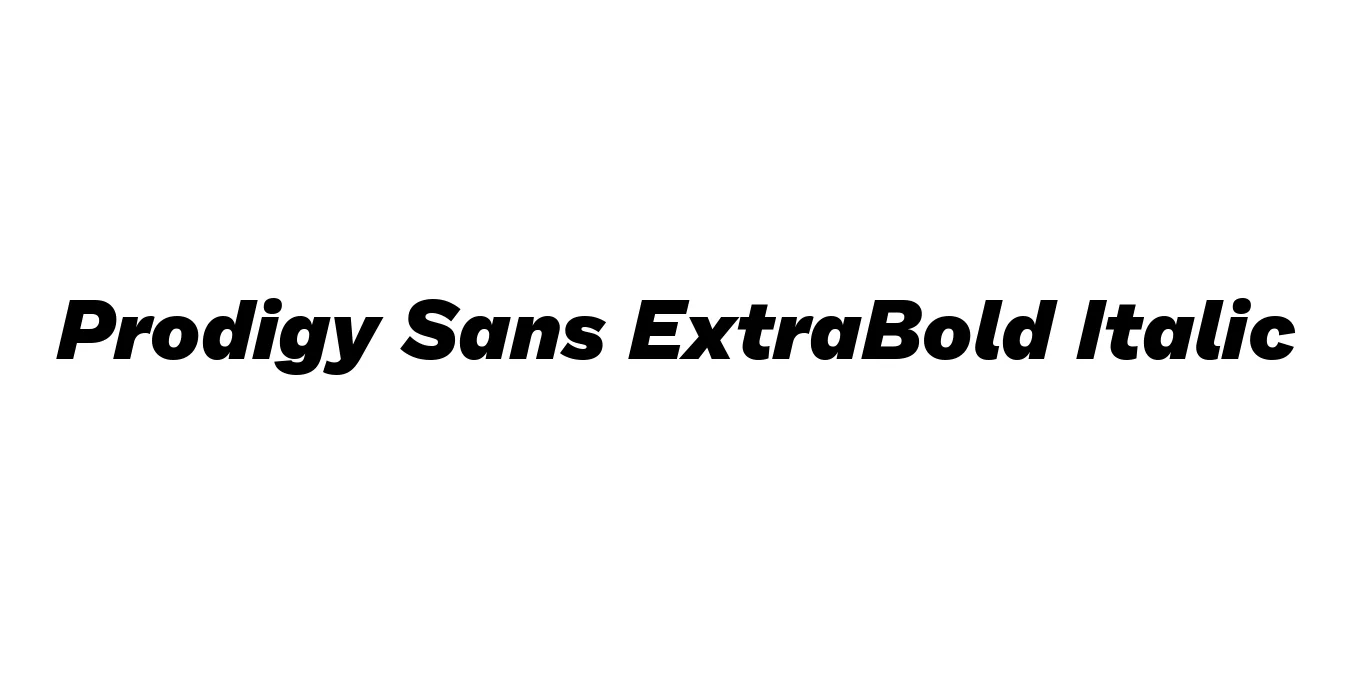
Prodigy Sans ExtraBold Italic
Designed by Oleh Lishchuk
| Category | Geometric Sans Serif |
| Designer | Oleh Lishchuk |
Prodigy Sans ExtraBold Italic is a sophisticated geometric typeface that blends architectural stability with a sense of high-velocity motion. Designed as part of a comprehensive family, this weight emphasizes bold strokes and precise curves, making it a standout choice for contemporary designs that require a loud yet professional voice. The extreme slant of the italic variant adds a dynamic, forward-thinking aesthetic to the grounded, geometric proportions of the characters.
This typeface is engineered for maximum impact in display environments, ensuring that every headline and title is impossible to ignore. Because of its wide apertures and carefully balanced counters, the font maintains surprisingly high legibility despite its heavy weight. It is an essential tool for designers working on modern branding projects, editorial layouts, and digital interfaces where a sense of strength and speed is paramount.
Prodigy Sans ExtraBold Italic Best Uses
Creating powerful, authoritative logos for tech and sports startups.
High-impact headlines for posters, billboards, and social media banners.
Eye-catching hero sections and landing page headers that need to convey motion.
Dynamic pull-quotes and article titles in modern magazines.